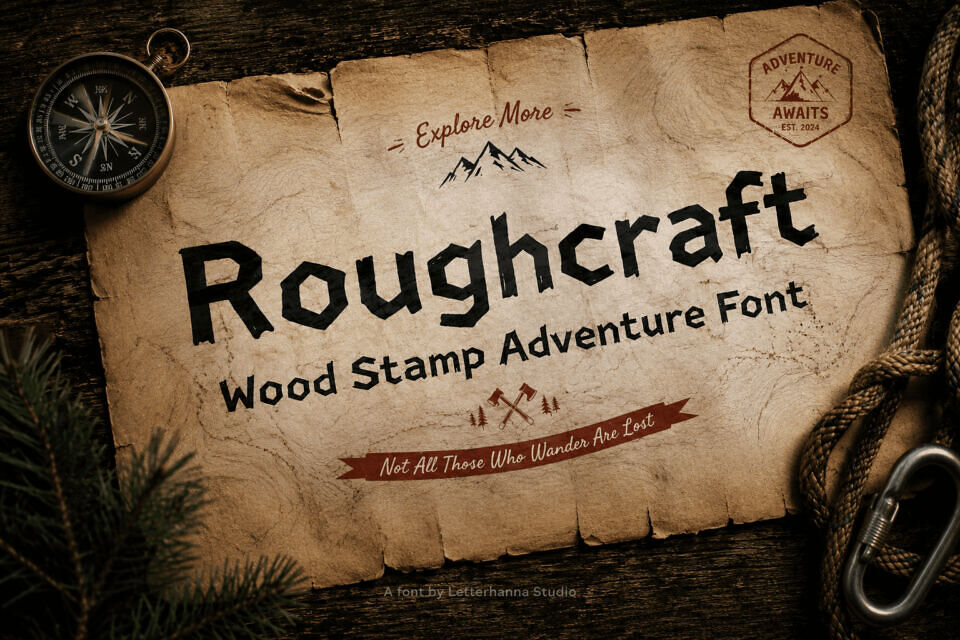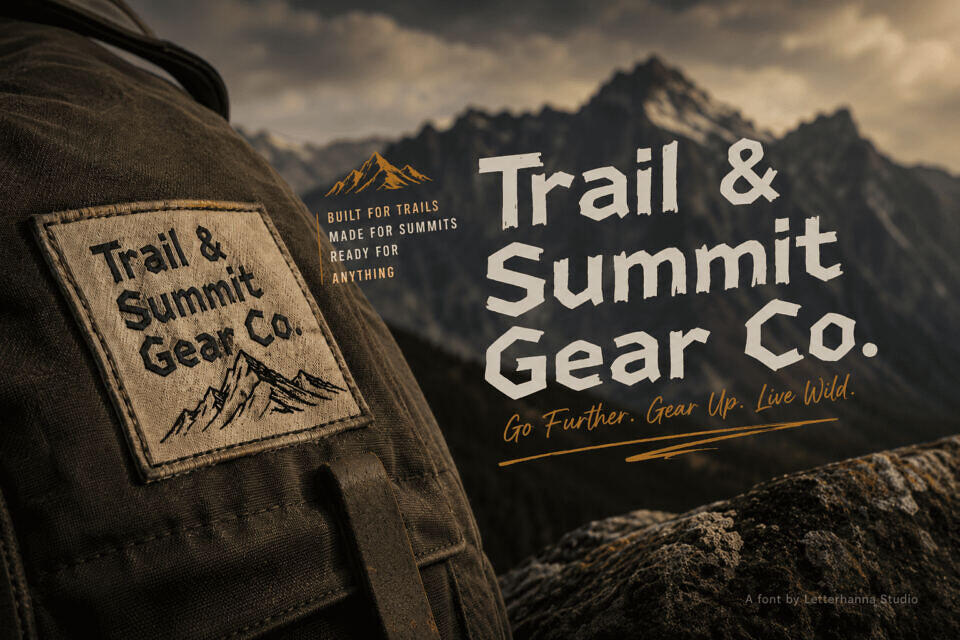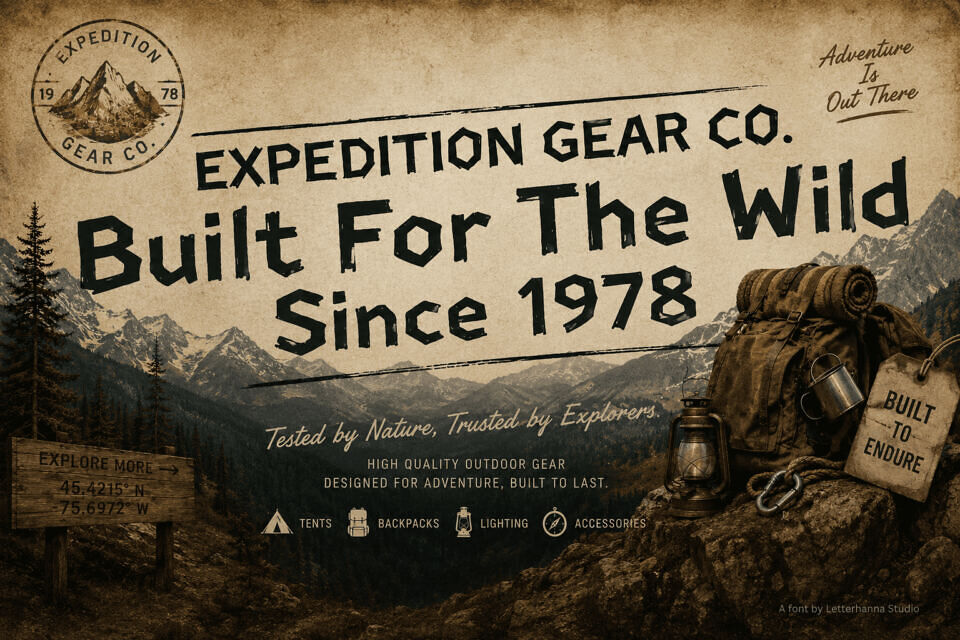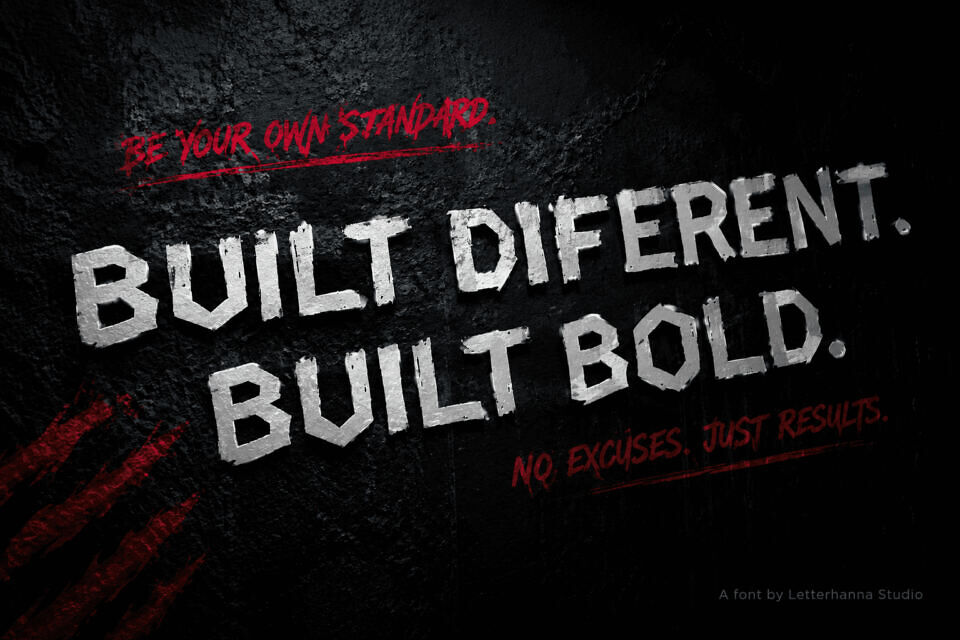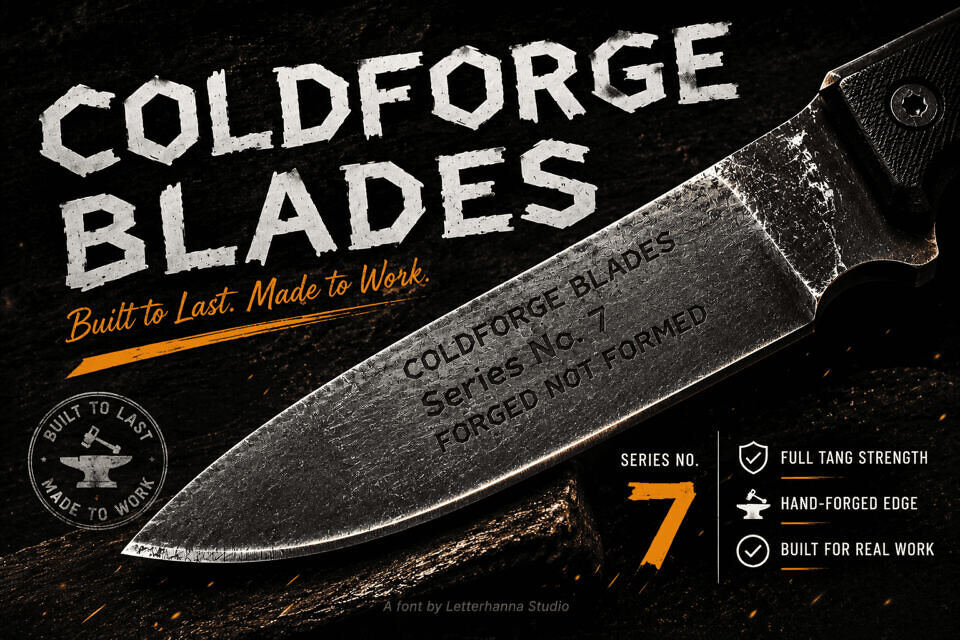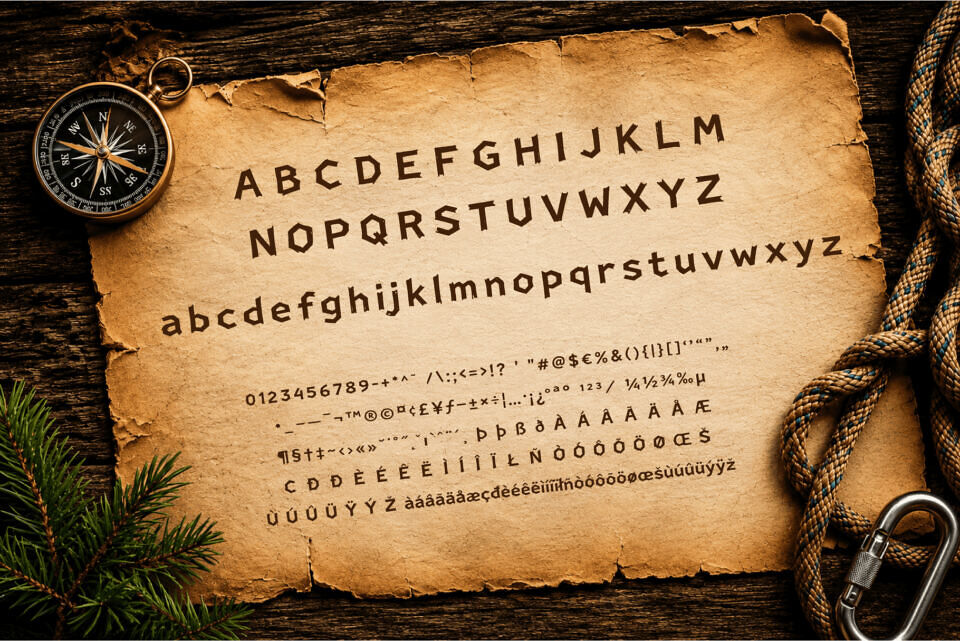
This font embodies the raw energy of handmade signs and wooden carvings. Its rough, tactile texture features thick strokes and natural imperfections, giving it a sturdy, commanding presence. Suitable for various uses, from craft beer to streetwear, it adds a rugged yet creative touch.
Designers often pair it with clean, minimalist fonts to create striking contrasts, making it ideal for logos, packaging, and social media graphics. Its versatility and unique character make it a popular choice.